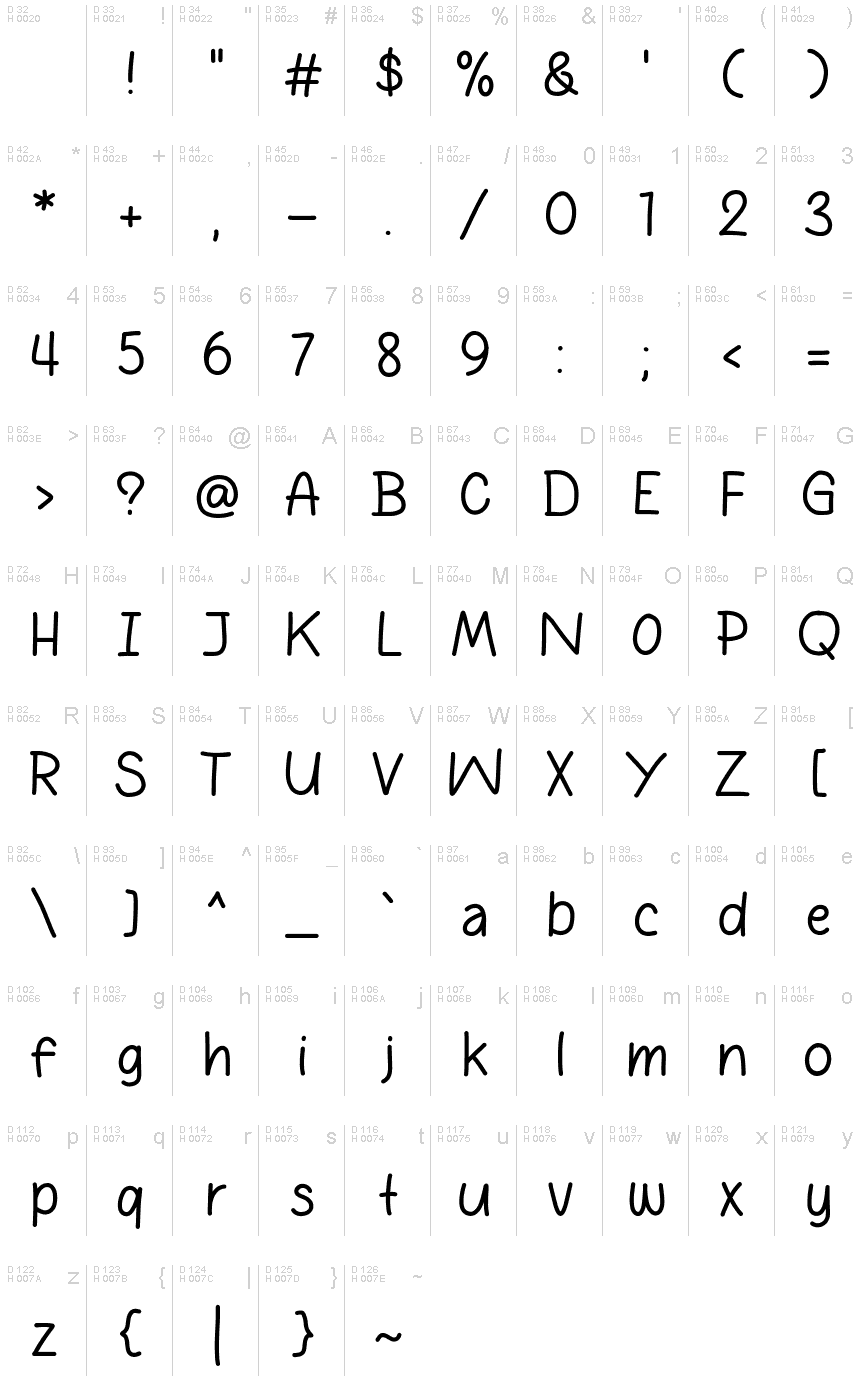
Cracker Banana
Cracker Banana, designed by the talented Khurasan, embodies the freshness and whimsy of a modern handwritten font. With its semi-light weight, it dances across the page, bringing a playful yet refined touch to any creative endeavor. This charming typeface is your go-to choice for projects that demand personality and warmth-from eye-catching posters and vibrant logos to stylish magazines and enchanting book covers.
The delightful quirks of Cracker Banana ensure your designs are imbued with life and character. Whether you're crafting banners that beg for attention or seeking that special flair for your branding, this font's versatility shines. Seamlessly blend Cracker Banana into your ideas to see them transform into captivating works of art that resonate with audiences far and wide.